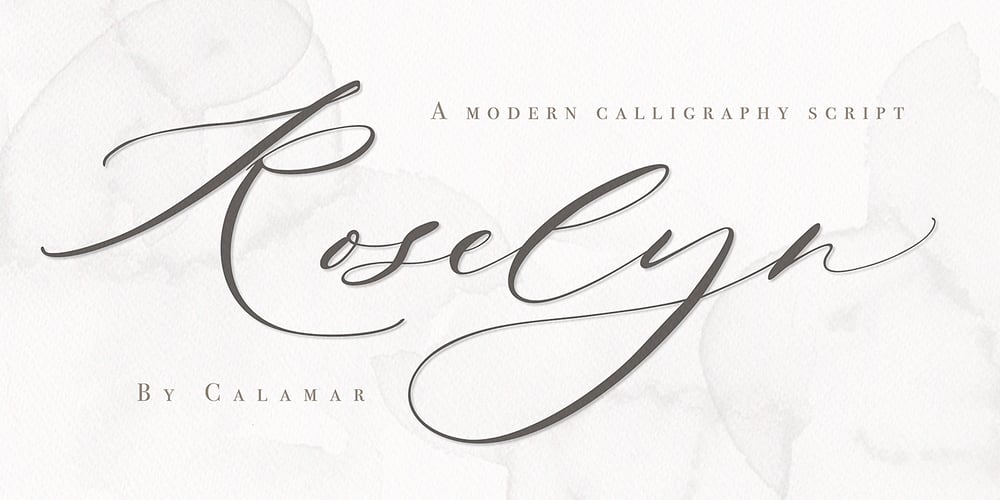
Roselyn
Roselyn font
Roselyn Font Family was designed by Oksana Petrenko and published by Calamar. Roselyn contains 1 styles and family package options. Roselyn Script is an elegant calligraphic font that will look awesome on wedding and event stationery, logos and branding materials, cards and so on. Roselyn Script includes Uppercase and Lowercase Latin Basic Characters, Numbers and Punctuation. Also the font contains ligatures and stylistic alternates to perfectly re-create natural calligraphy.